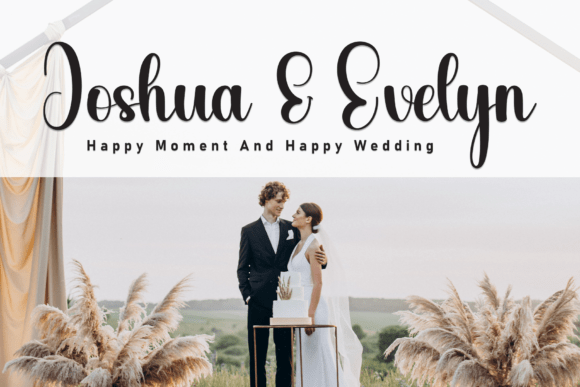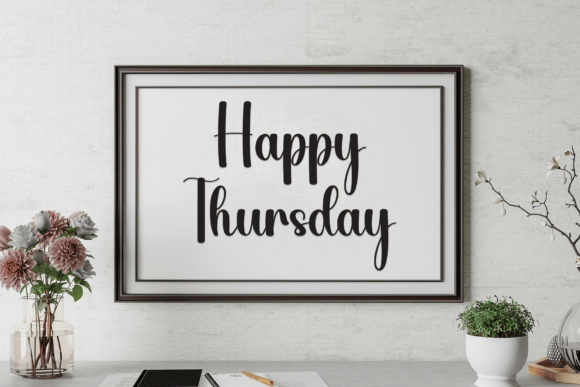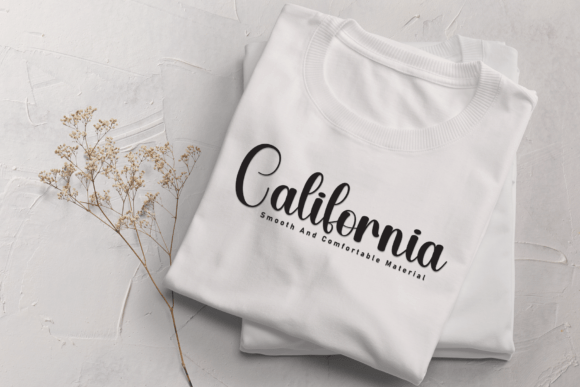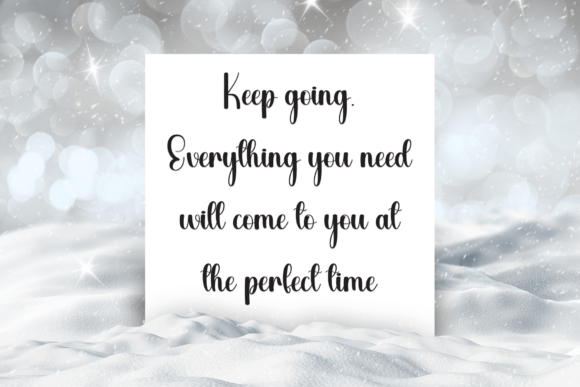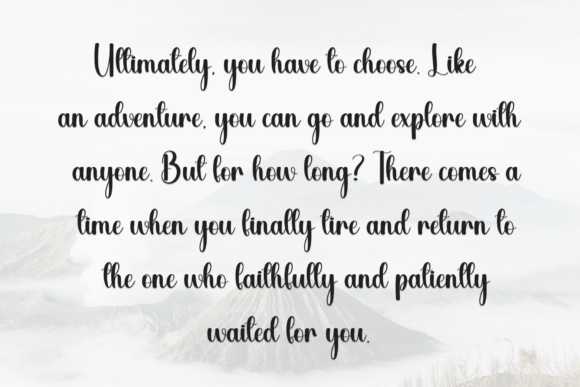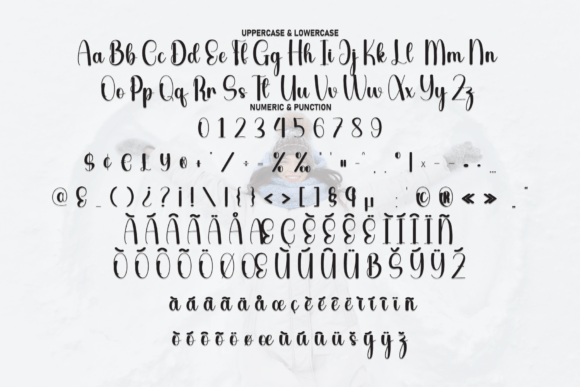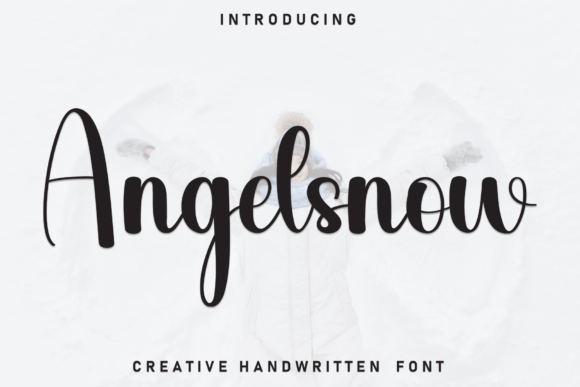
Introducing Angelsnow Font: Elevate Your Designs with Elegance and Sophistication
In the world of typography, a well-crafted font can make all the difference in transforming a design from ordinary to extraordinary. For designers and crafters seeking to infuse their projects with a touch of elegance and modern charm, Angelsnow Font is an exceptional choice. This stylish script font is meticulously designed to bring a refined and sophisticated aesthetic to a wide range of applications, from logos and invitations to packaging and social media graphics.
The Beauty of Angelsnow Font
Angelsnow Font stands out with its graceful strokes, fluid curves, and carefully crafted letterforms that emulate the beauty of hand-drawn calligraphy, but with a distinctly modern twist. The font’s design ensures a natural flow and polished details, making it not only visually appealing but also highly versatile. Whether you’re working on a luxury brand’s logo, a wedding invitation, or a product package, Angelsnow Font adds a level of sophistication that elevates the entire design.
Key Features of Angelsnow Font
- Elegant and Modern Design: Angelsnow Font boasts a stylish and contemporary look, perfect for designs that require a touch of elegance and sophistication.
- Versatility: Its versatile nature makes it suitable for a wide range of projects, including but not limited to logos, invitations, packaging, and social media graphics.
- Hand-Drawn Calligraphy Feel: With its fluid curves and graceful strokes, Angelsnow Font captures the essence of hand-drawn calligraphy, offering a personal and bespoke feel to digital designs.
- Polished Details: The font’s carefully crafted letterforms and natural flow ensure a polished and refined appearance, making it stand out in any design.
Applications of Angelsnow Font
The versatility of Angelsnow Font makes it an invaluable asset for designers across various industries. Here are some of the key areas where this font truly shines:
- Logo Design: Create memorable and elegant logos that embody the essence of your brand.
- Invitations and Stationery: Add a touch of sophistication to wedding invitations, event flyers, and personal stationery.
- Packaging: Elevate product packaging with a refined and luxurious look that captures consumer attention.
- Social Media Graphics: Stand out on social media platforms with elegant graphics, quotes, and promotional materials.
Tips for Using Angelsnow Font Effectively
To maximize the impact of Angelsnow Font in your designs, consider the following tips:
- Pair with Complementary Fonts: For optimal results, pair Angelsnow Font with simple, sans-serif fonts to create a balanced and harmonious design.
- Adjust Letter Spacing: Fine-tune letter spacing to enhance readability and ensure a natural flow.
- Consider Font Size: Use varying font sizes to create visual hierarchy and emphasize key messages.
- Experiment with Colors: While Angelsnow Font shines in solid colors, experimenting with subtle gradients or textures can add depth to your designs.
Angelsnow Font is more than just a script font; it’s a design tool that can transform your projects with its elegance, modern charm, and versatility. Whether you’re a professional designer or a crafting enthusiast, this font offers the perfect blend of style and functionality. By incorporating Angelsnow Font into your designs, you’re not just choosing a typeface; you’re elevating your work to new heights of sophistication and visual appeal.